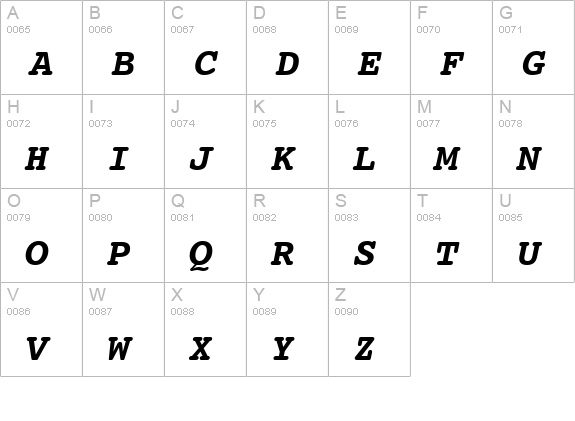
Courier Bold Italic SWA Font Details
Courier Bold Italic SWA is a strong, high-contrast, italic variant in the Courier typeface family \xE2\x80\x94 well suited to headlines, attention-grabbing titles, and strong calls-to-action.
Courier Bold Italic SWA font is a stylish and modern typeface that exudes professionalism and sophistication. With its bold and italic design, this font is perfect for adding emphasis and flair to your projects. Whether you're creating brochures, presentations, or signage, Courier Bold Italic SWA will make your text stand out. The best part is that Courier Bold Italic SWA is available for free download at FontsMarket.com. You can easily access this versatile font and use it in your personal or commercial projects without any cost. Don't miss out on the opportunity to enhance your designs with this elegant and eye-catching font. Download Courier Bold Italic SWA today and take your typography to the next level!